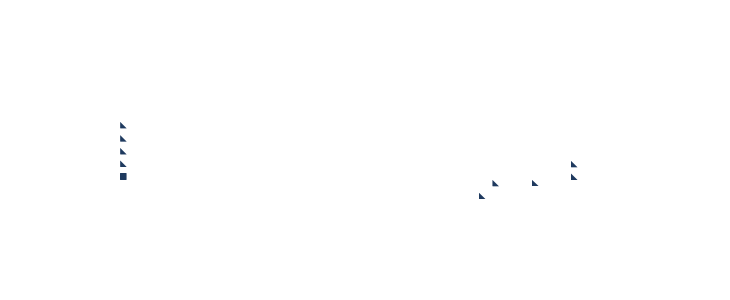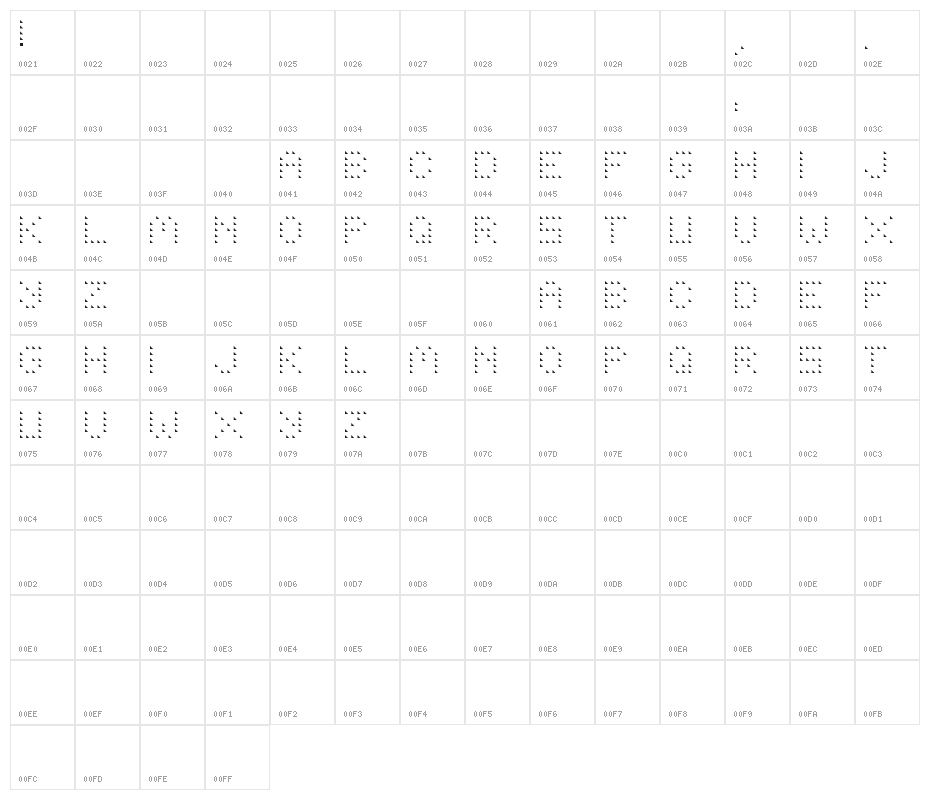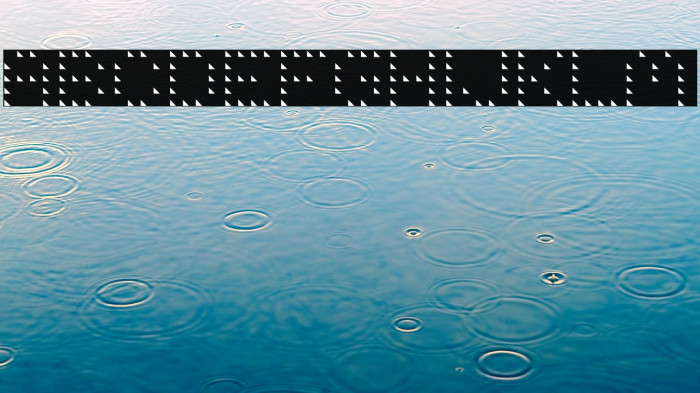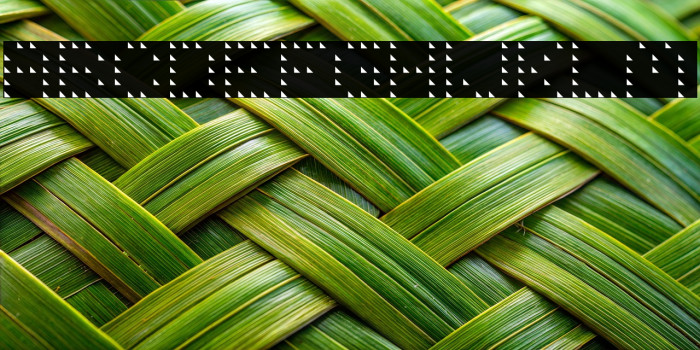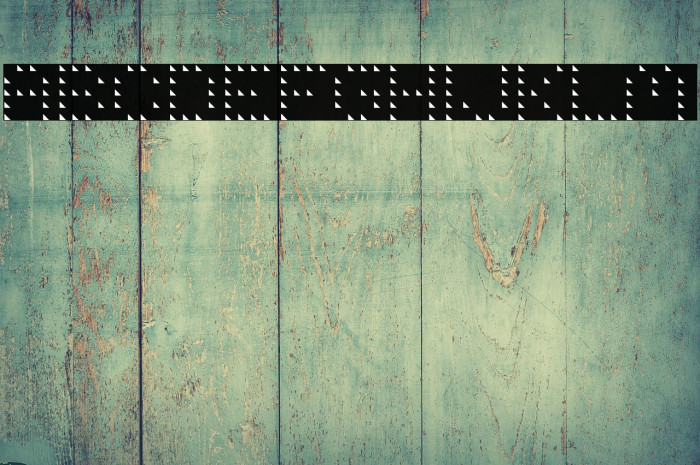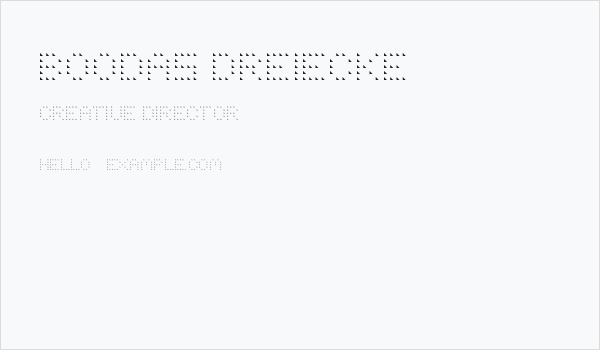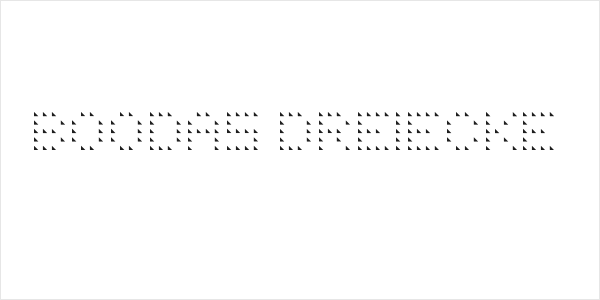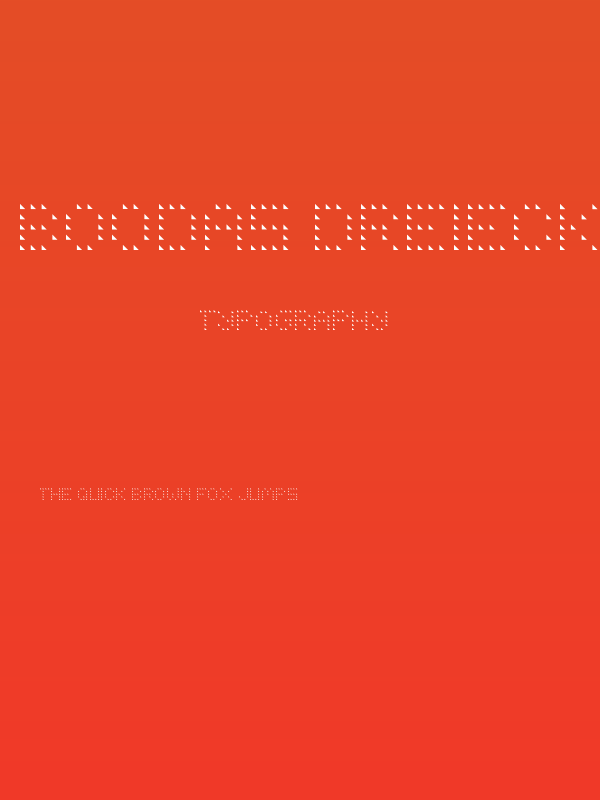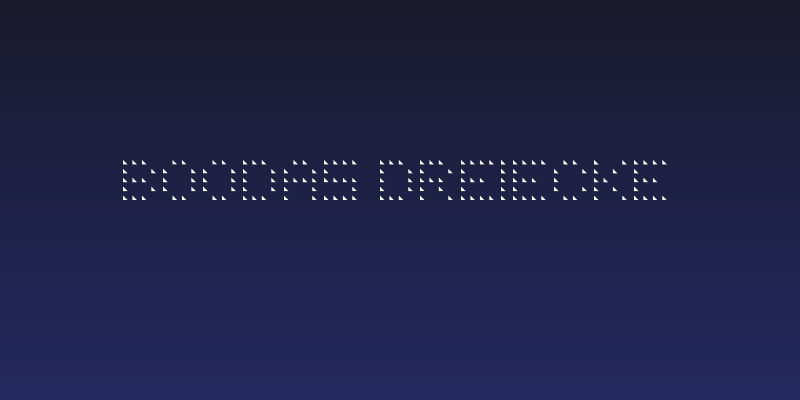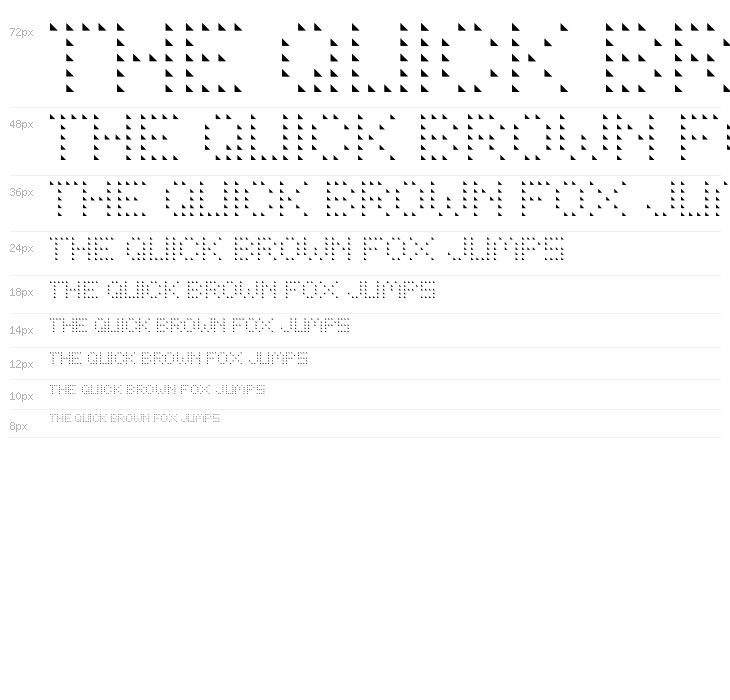
BOODAS DREIECKE Font
BOODAS DREIECKE Description
This font features a unique design composed entirely of small triangular shapes, creating a pixelated and geometric appearance. The characters are formed by arranging these triangles in a grid-like pattern, giving the font a modern and digital aesthetic. The uppercase and lowercase letters maintain a consistent style, with each character clearly distinguishable despite the abstract construction. The numbers and special characters follow the same design principles, ensuring uniformity across the entire character set. This font's distinct look makes it suitable for creative and contemporary projects.
| Use Case | Logos, Headlines, Digital Art |
| Proposed Projects | Ideal for digital art, tech-themed designs, modern posters, and creative branding projects. |